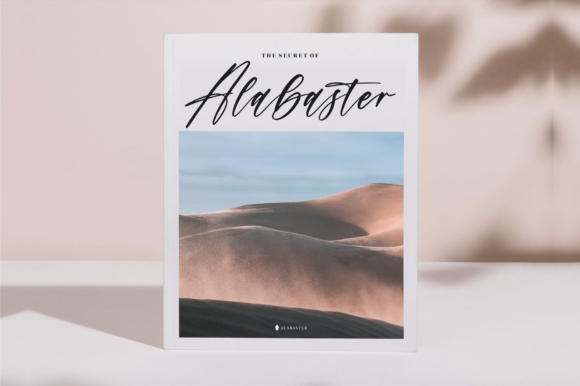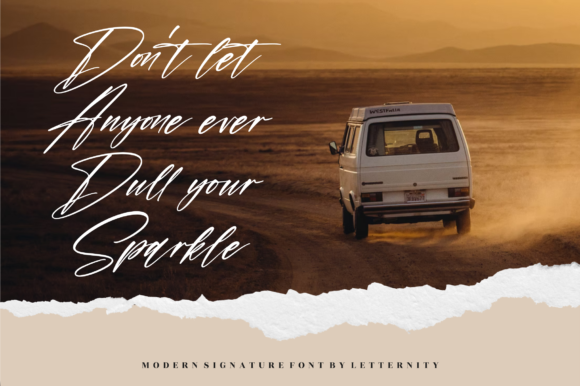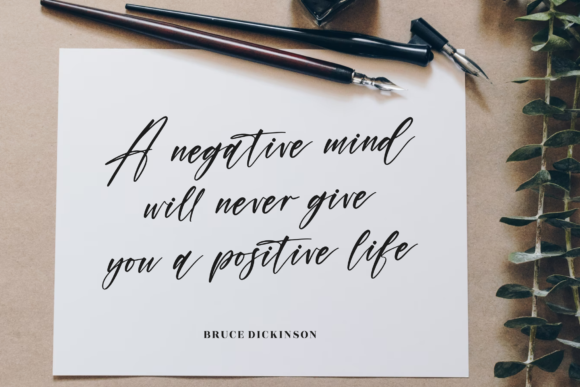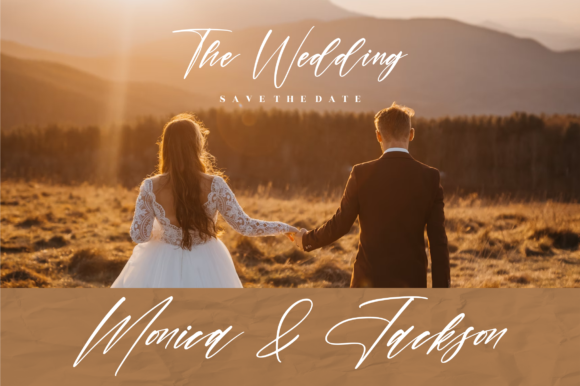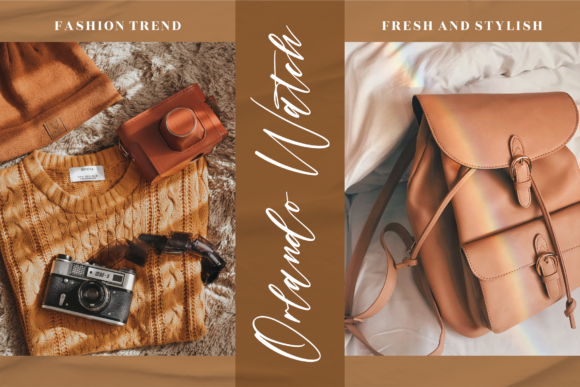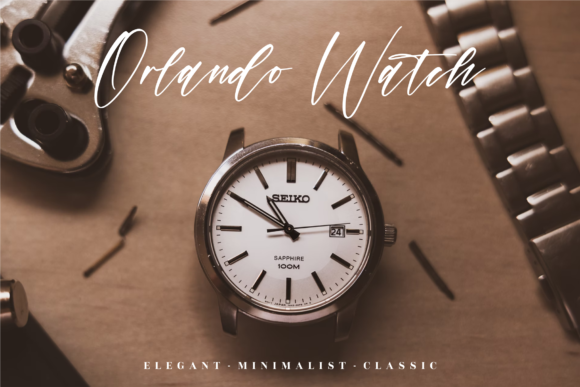
Introduction to Monttena Font
Monttena is a beautiful script font.
It is suitable for a variety of projects such as: logos, branding projects, homeware designs, product packaging, mugs, quotes, and a variety of other lovely projects that need an ageless taste .
Key Features of Monttena Font
Why Choose Monttena Font?
Monttena Font offers exceptional quality and versatility, making it a valuable addition to your design toolkit. Whether you’re creating for personal projects or commercial use, Monttena Font delivers professional results.